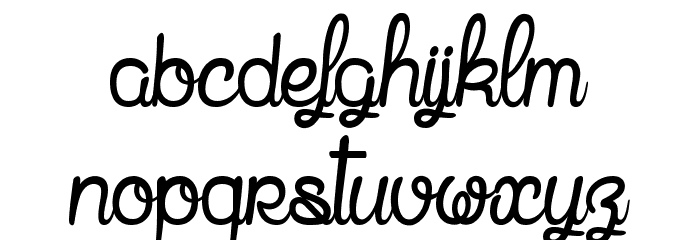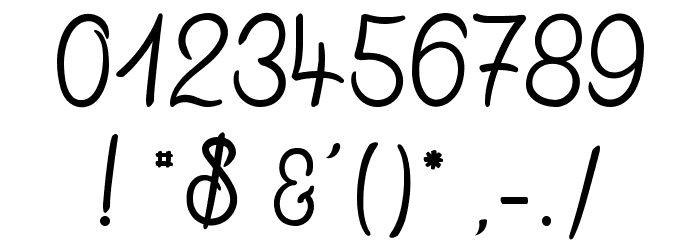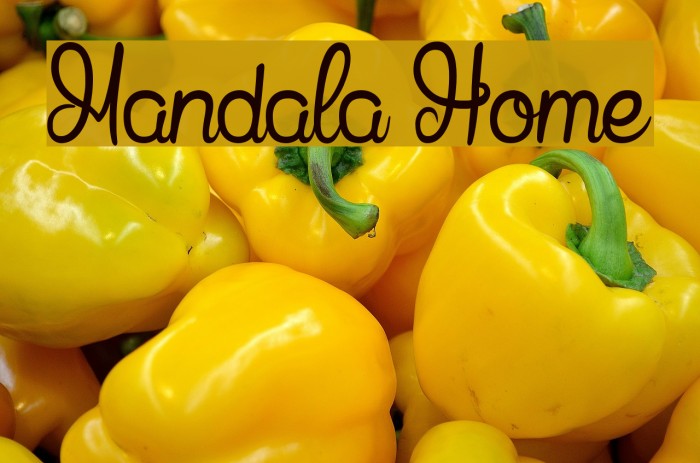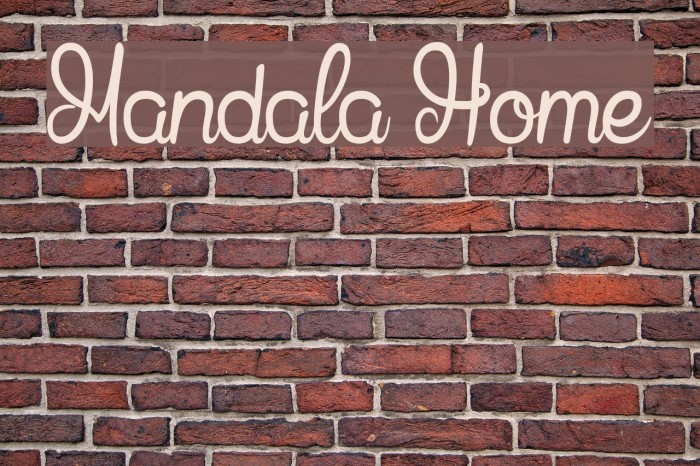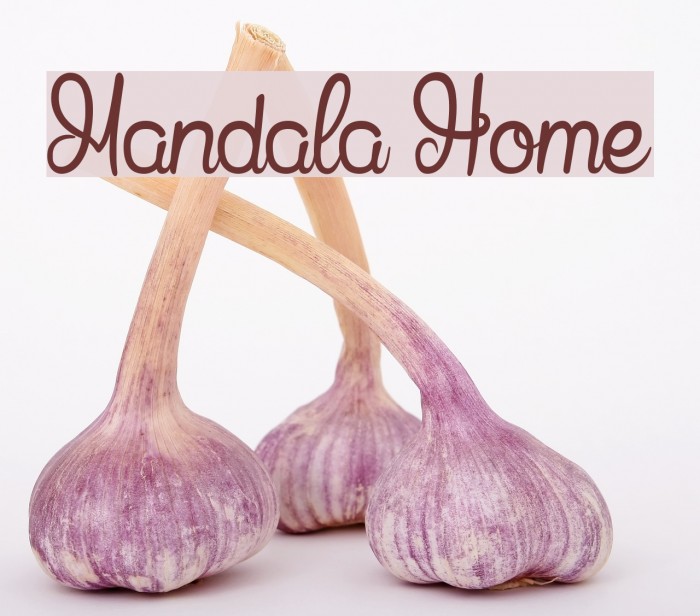
Mandala Home Font
This font features a playful and decorative script style with a unique blend of elegance and whimsy. The uppercase letters are characterized by their looping and curling strokes, giving them a lively and dynamic appearance. The lowercase letters maintain a consistent flow, with smooth connections between characters, enhancing readability while retaining an artistic flair. The numerals are designed with a similar playful style, ensuring consistency across all characters. Special characters are creatively integrated, adding to the font's overall charm. This font is perfect for projects that require a touch of creativity and elegance.
A playful and decorative script font with elegant loops and curls.
- Proposed Projects: Ideal for wedding invitations, greeting cards, branding, and creative posters.
- Use Case: Logos, Invitations, Creative Projects